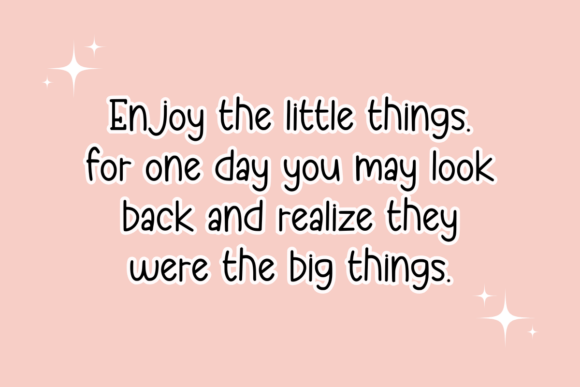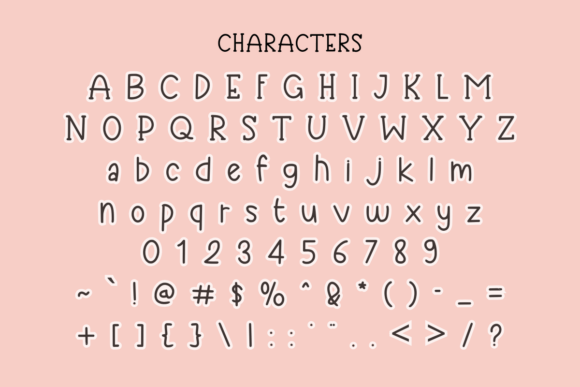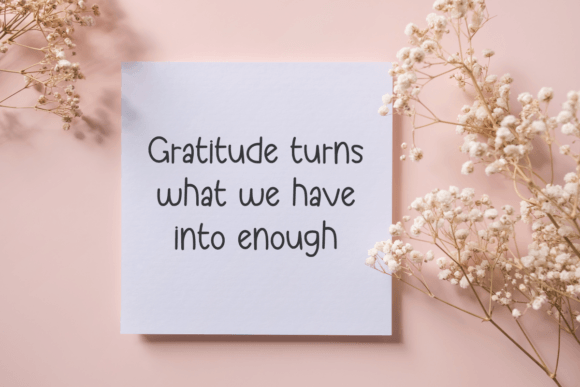
Introduction to Luxury Sprush Font
You’ve finally nailed down the concept for your latest creative project, and the excitement is palpable. But, as you dive into the design process, you realize that the perfect font is the missing piece of the puzzle. That’s where the Luxury Sprush Font comes in – a game-changing addition to your design arsenal.
This versatile sans serif font is more than just a pretty face; it’s a high-quality design resource that can elevate any project to new heights. With its unique style and transparent background, the Luxury Sprush Font is the perfect fit for a wide range of creative endeavors. And, as an added bonus, it’s available for free download, making it an accessible and valuable resource for designers of all levels.
Key Features of Luxury Sprush Font
- High-quality, intricately designed font perfect for creative projects and design resources.
- Font size: 1,000 characters (including accents and special characters); ideal for use in titles, headings, and body text.
- High-resolution design, suitable for print and digital applications up to 300 DPI.
- Unique, handcrafted design elements, making it a standout choice for designers seeking a luxurious aesthetic.
- Includes a comprehensive character set, covering Latin, Cyrillic, and Greek alphabets, as well as punctuation and special characters.
Honest Review: Luxury Sprush Font
I recently had the chance to work with the Luxury Sprush Font, and I must say, it’s a great addition to any designer’s arsenal. The font is perfect for creative projects that require a touch of sophistication and elegance.
One of the things that stands out about the Luxury Sprush Font is its high quality. The font is crisp and clean, making it ideal for use on transparent backgrounds. The font is also highly versatile, and can be used for a wide range of design projects, from logos to brochures.
Here are some things that work well with the Luxury Sprush Font:
- ✨ High quality and crisp lines
- ✨ Perfect for use on transparent backgrounds
- ✨ Highly versatile and suitable for a wide range of design projects
However, there are a few limitations to be aware of:
- ⚠️ Limited character set, which may be a concern for designers working on longer projects
Overall, I’m very impressed with the Luxury Sprush Font. It’s a high-quality font that’s perfect for designers looking to add a touch of luxury to their projects. With its transparent background and high-quality lines, it’s a great addition to any design resource collection.
Tips for Getting the Most Out of Luxury Sprush Font
Experiment with different font sizes, colors, and combinations to create unique and eye-catching designs. Use the transparent background feature to create stunning visual effects. You can also pair the Luxury Sprush Font with other high-quality fonts to create a cohesive and luxurious look.
Common Use Cases for Luxury Sprush Font
The Luxury Sprush Font is perfect for creative projects that require a touch of luxury and elegance. Some common use cases include:
- Business presentations and proposals
- High-end product packaging and branding
- Editorial and lifestyle design